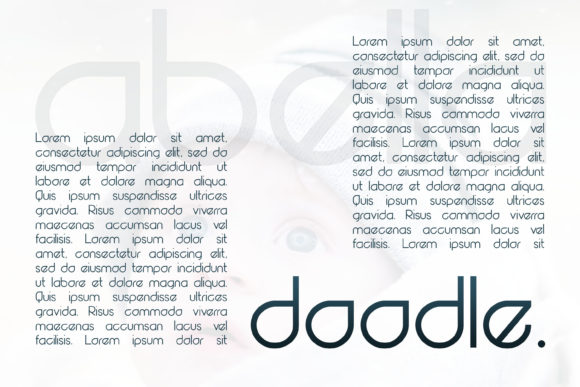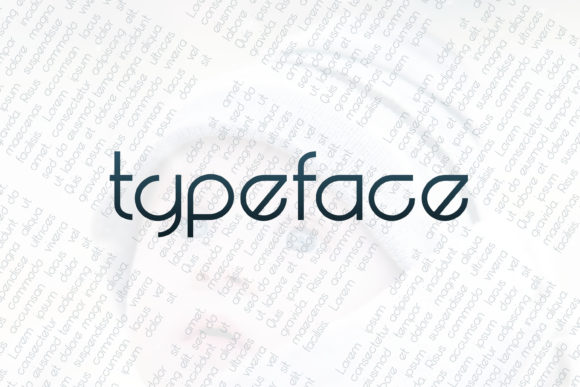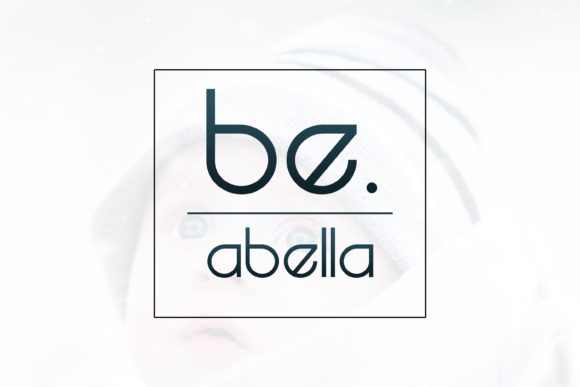
Introducing Abella Font: The Modern and Clean Display Font for Creative Projects
Are you tired of using the same old fonts for your design projects? Look no further than Abella Font, a modern and clean display font that is sure to take your creative ideas to the next level. With its sleek and sophisticated design, Abella Font is perfect for a wide range of projects, from branding and advertising to packaging and digital media.
What Makes Abella Font So Special?
Abella Font is a versatile and highly adaptable font that can easily be matched to an incredibly large set of projects. Its clean and modern design makes it perfect for use in a variety of contexts, from headlines and titles to body text and captions. Whether you’re working on a logo, brochure, or website, Abella Font is sure to make your project stand out from the crowd.
Key Features of Abella Font
- Modern and Clean Design: Abella Font features a sleek and sophisticated design that is perfect for modern designs.
- Highly Adaptable: Abella Font can easily be matched to a wide range of projects, making it a versatile addition to your font library.
- Easy to Read: Despite its modern design, Abella Font is easy to read and understand, making it perfect for use in body text and captions.
- Scalable: Abella Font is designed to be scalable, making it perfect for use in a variety of contexts, from small captions to large headlines.
How to Use Abella Font in Your Design Projects
Abella Font is easy to use and can be incorporated into your design projects in a variety of ways. Here are a few ideas to get you started:
- Branding and Advertising: Use Abella Font to create bold and eye-catching headlines and titles for your branding and advertising campaigns.
- Packaging Design: Add a touch of modern sophistication to your packaging designs with Abella Font.
- Digital Media: Use Abella Font to create engaging and easy-to-read digital content, from social media posts to blog articles.
- Graphic Design: Incorporate Abella Font into your graphic designs, such as brochures, flyers, and posters.
Why Designers and Crafters Love Abella Font
Abella Font has quickly become a favorite among designers and crafters, and for good reason. Here are just a few reasons why:
- Unique and Creative: Abella Font offers a unique and creative way to add visual interest to your design projects.
- Easily Customizable: Abella Font is easily customizable, making it perfect for use in a variety of contexts.
- High-Quality Design: Abella Font features a high-quality design that is sure to impress your clients and audience.
In conclusion, Abella Font is a modern and clean display font that is perfect for designers and crafters looking to add a touch of sophistication to their design projects. With its highly adaptable design, ease of use, and high-quality features, Abella Font is sure to become a staple in your font library. So why wait? Download Abella Font today and start creating stunning designs that are sure to stand out!
So add Abella Font to your creative ideas and notice how it makes them stand out!